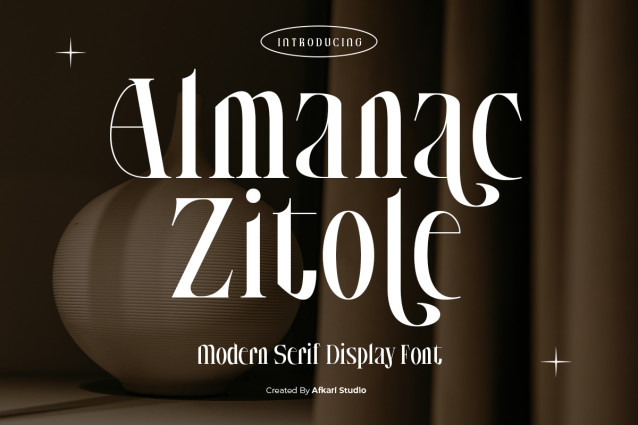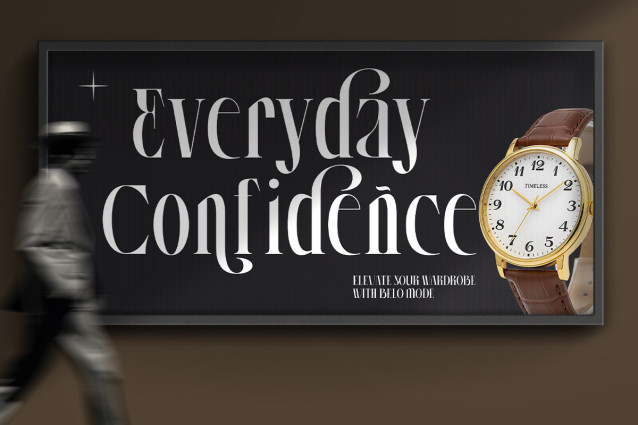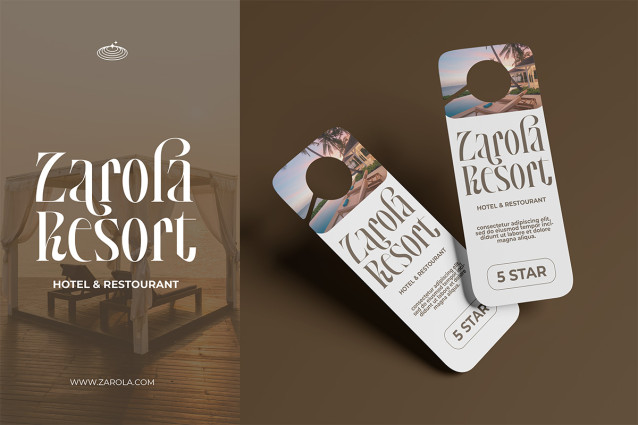
Almanac Zitole – Modern Serif Display Font
Almanac Zitole is a refined modern serif display font designed to bring elegance, contrast, and sophistication into your creative projects. With its sharp serif details, balanced proportions, and contemporary structure, this typeface blends classic serif beauty with a modern editorial aesthetic. The result is a stylish display font that feels luxurious, confident, and highly professional.